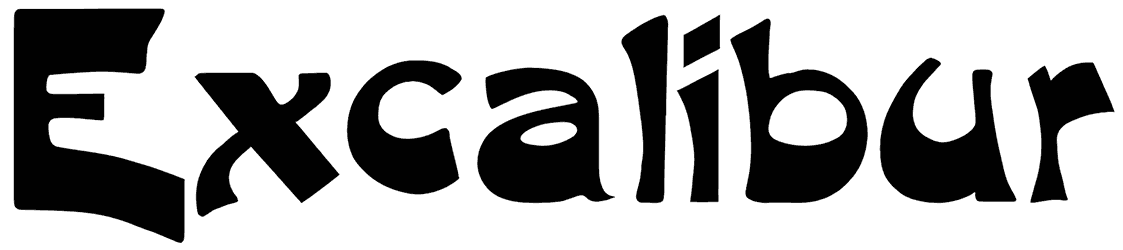
Excalibur Logotype Font
Here we come again with a timeless bold font such as Excalibur Logotype that is masterfully designed with accurate curves and carries a sense of fierce, vivacity, sincerity, and dynamism.